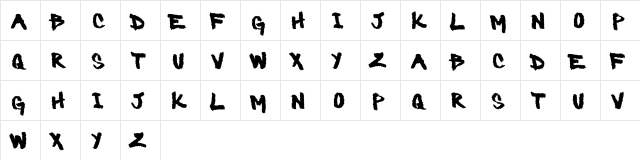
Barbaric Regular
| Designer | Chris Vile |
Design Context for Barbaric Typeface
Barbaric is a composed and adaptable typeface that performs quietly and consistently across a wide range of design contexts.